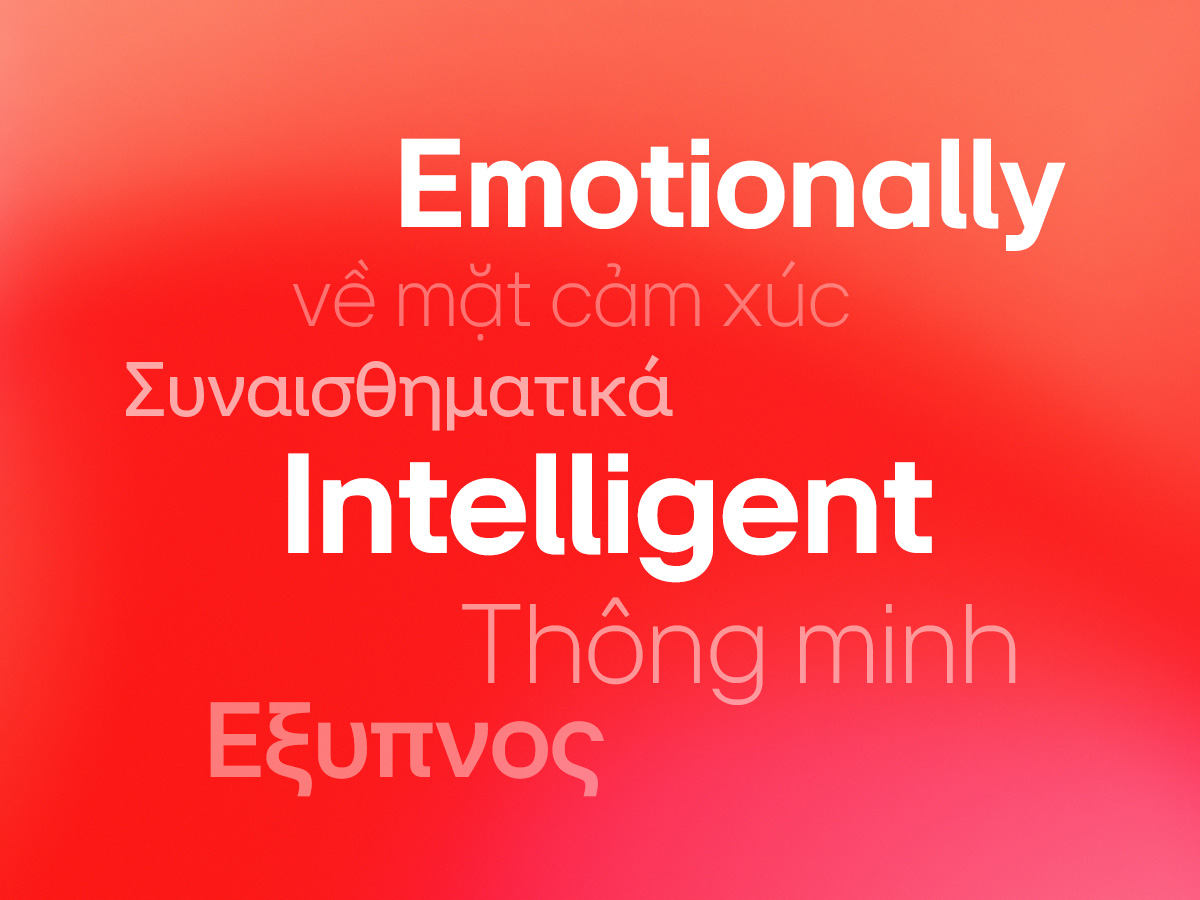
- Recognized for enhancing digital and global user experience through collaboration with LG Electronics Design Management Center
- Following the top award in the Brand & Communication Design category at the Red Dot Design Award 2023 for the global font project ‘November’
- Sandoll’s font development expertise and branding-linked planning capabilities recognized globally, raising expectations for future global market expansion
Sandoll Inc. (CEO Yoon Young-ho), a content creator platform company, announced on the 17th that ‘LG EI Headline (LG Emotional Intelligence Headline),’ developed in collaboration with LG Electronics Design Management Center (Design Identity Management), won the Communication category at the ‘iF Design Award 2025.’
‘LG EI Headline’ won in the Communication category. The font is a global font that supports multiple languages, including Latin, Latin Extended, Greek, and Vietnamese. It was developed over approximately 10 months, from January to October 2023, through a collaborative effort between Sandoll and LG Electronics’ Brand Management and Design Identity Management departments.
Sandoll has established itself as a leader in the industry through successful collaborations with numerous global companies, producing multilingual fonts covering Korean, Japanese, Chinese, Vietnamese, and more.
This award is particularly significant as it reflects global recognition of Sandoll’s expertise in multilingual font development and its ability to integrate branding strategies.
‘LG EI Headline’ was highly rated for its precise kerning adjustments and balanced character spacing, which enhance readability even in complex writing systems. Its deep understanding of multilingual typography and complex writing systems allowed it to deliver a consistent brand identity and natural user experience across different languages.
Additionally, the font features Variable Font technology, enabling natural rendering in complex character environments. This ensures balanced readability and clarity across both screen and print media, maintaining a consistent brand image and improving the user experience in various digital and print environments.
Currently, ‘LG EI Headline’ is applied to LG’s global digital and print communications, advertisements, and websites. It is expected to play a key role in strengthening LG’s brand identity moving forward.